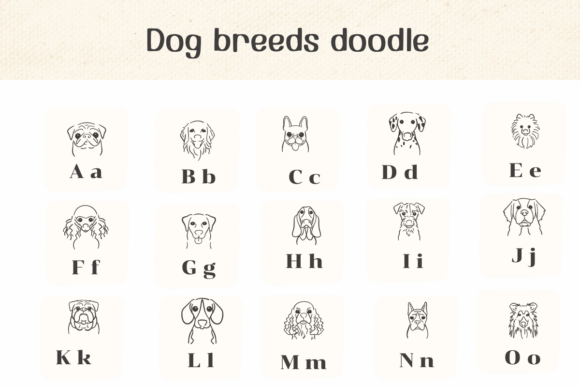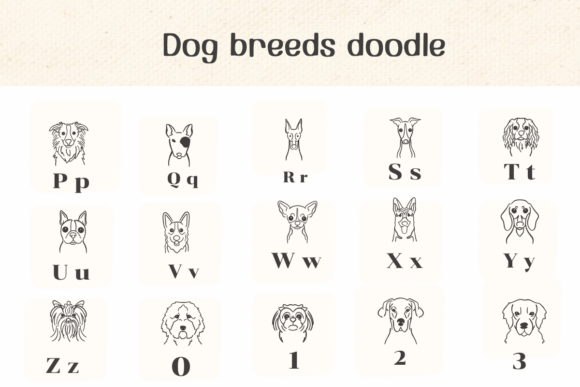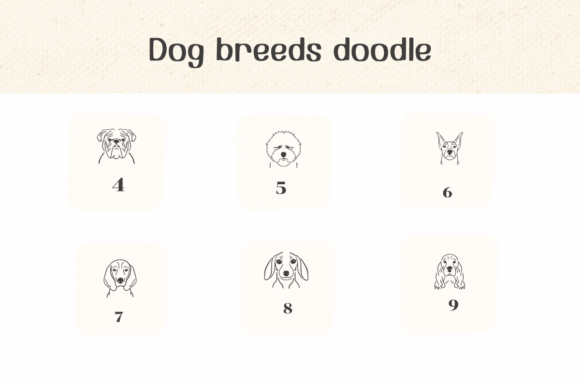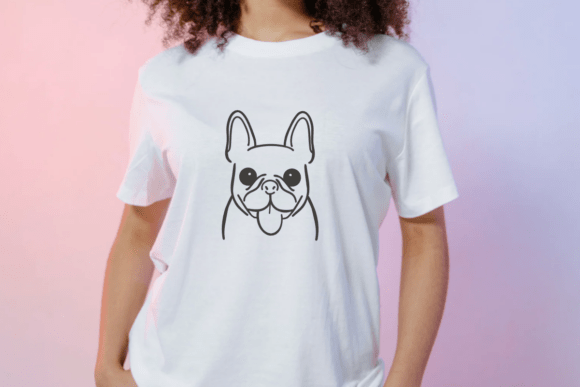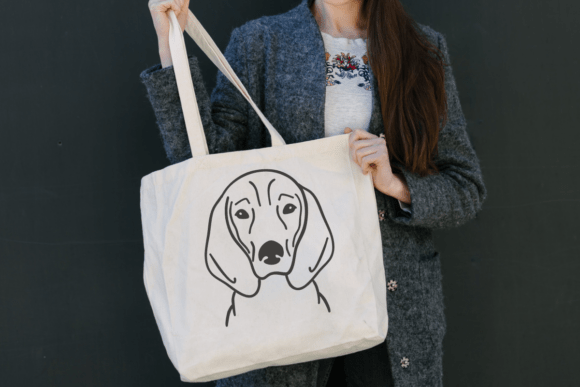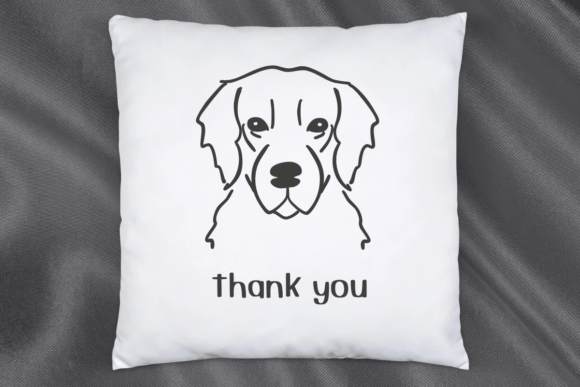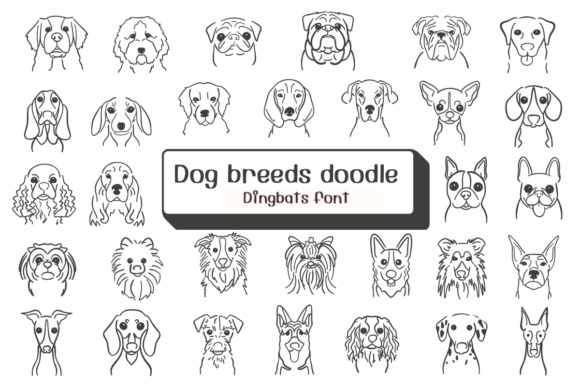
Unleash Creativity with Dog Breeds Doodle Font: A Dingbats Delight
Are you a designer, crafter, or DIY enthusiast looking for a unique and playful font to elevate your creative projects? Look no further than the Dog Breeds Doodle Font, a charming dingbats font that’s sure to delight. In this article, we’ll dive into the world of Dog Breeds Doodle Font, exploring its features, uses, and benefits for crafty individuals and designers alike.
What is Dog Breeds Doodle Font?
Dog Breeds Doodle Font is a dingbats font that features an adorable collection of dog breeds, meticulously designed to bring a touch of whimsy and personality to your creative projects. This font is perfect for anyone who loves dogs, doodling, or simply adding a dash of playfulness to their designs.
Key Features of Dog Breeds Doodle Font
- Unique Dog Breed Illustrations: The font boasts an impressive range of dog breed illustrations, each carefully crafted to capture the distinct characteristics of its respective breed.
- Dingbats Font Style: As a dingbats font, Dog Breeds Doodle Font offers a versatile and creative way to add visual interest to your designs.
- Scalable and Editable: The font is fully scalable and editable, allowing you to adjust its size and style to suit your project’s needs.
Creative Uses for Dog Breeds Doodle Font
The Dog Breeds Doodle Font is an incredibly versatile tool that can enhance a wide range of creative projects. Here are some inspiring ideas to get you started:
- Wedding Invitations: Add a personal touch to your wedding invites with custom dog-themed illustrations.
- DIY Crafts: Use the font to create one-of-a-kind decorations, cards, and gifts for dog lovers.
- Logos and Branding: Create a memorable brand identity with a custom logo featuring a dog breed illustration.
- Stationery and Paper Crafts: Add a playful touch to your journals, planners, and paper crafts with the Dog Breeds Doodle Font.
- Digital Art and Illustrations: Combine the font with your favorite digital art software to create stunning illustrations and graphics.
So, what makes the Dog Breeds Doodle Font an essential tool for designers and crafters?
- Time-Saving: The font saves you time and effort by providing pre-designed illustrations that can be easily integrated into your projects.
- Unique and Playful: The Dog Breeds Doodle Font adds a fresh and playful twist to your designs, setting them apart from the ordinary.
- Customization: With the font’s editable features, you can tailor the illustrations to fit your project’s specific needs and style.
- Inspiration: The font’s creative possibilities can spark new ideas and inspire you to experiment with innovative designs.
In conclusion, the Dog Breeds Doodle Font is a delightful dingbats font that offers a world of creative possibilities for designers, crafters, and DIY enthusiasts. With its unique dog breed illustrations, scalable and editable features, and instant download access, this font is sure to become a favorite in your creative toolkit. So, unleash your creativity and get ready to make a splash with the Dog Breeds Doodle Font!